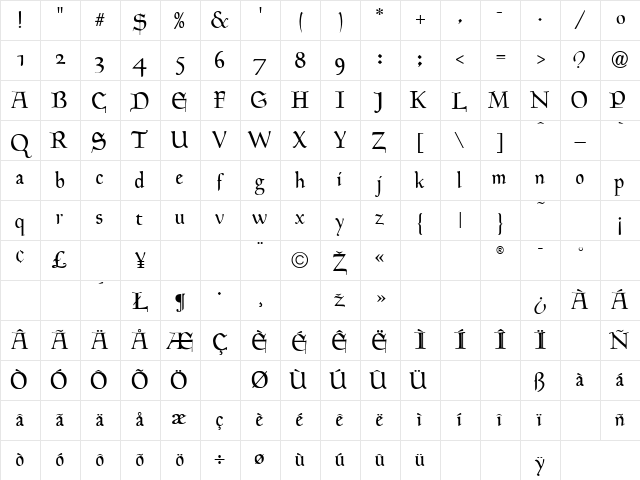
Hingham Text Normal
Design Context for Hingham Text
Hingham Text is a composed and adaptable typeface that performs quietly and consistently across a wide range of design contexts.